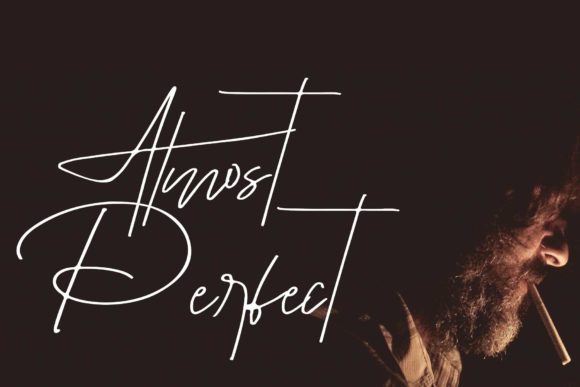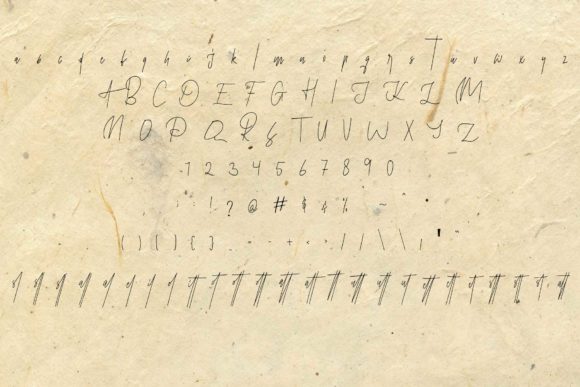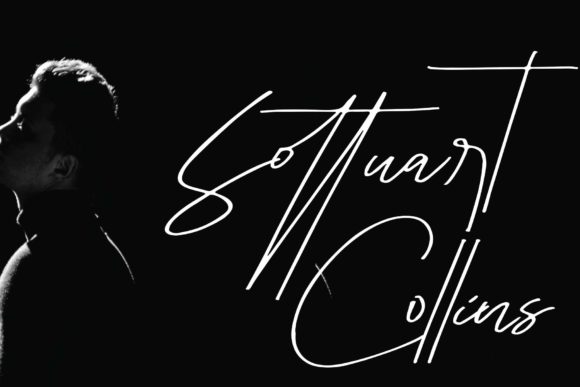
Introduction to Missive Font Font
Fonts play a crucial role in design, and the Missive Font font is a typeface that brings both character and versatility to any project. Whether you’re working on a branding project, a website, or a print design, the Missive Font font offers a unique style that can elevate your work.
Missive is a lovely modern handwritten font ready to be used in your next designs.
This font can be used in a wide variety of applications from logos, wedding invitations to book covers and more, the only limit is your imagination .
Key Features of Missive Font Font
Why Choose Missive Font Font?
The Missive Font font is more than just a typeface – it’s a design tool that helps you communicate your message with style and clarity. Its unique character set and versatile design make it suitable for a wide range of applications, from elegant invitations to bold headlines.
With its carefully crafted letterforms and balanced proportions, the Missive Font font ensures readability and visual appeal across all mediums.
What makes Missive Font font special?
The Missive Font font stands out with its unique design, exceptional readability, and versatility across various design applications.